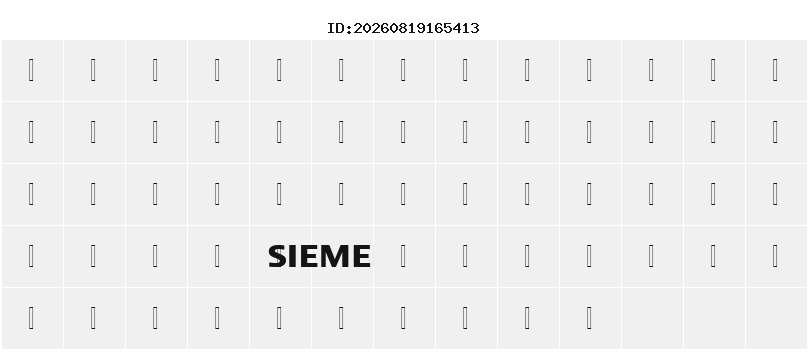
Siemens Logo Preview
• Font Name: Siemens Logo
• Full Font Name: Siemens Logo
• Character Count: 4
About Siemens Logo.ttf
Siemens Logo.ttf is a modern, elegant sans-serif font designed for ultimate readability and visual harmony. Perfect for branding, headlines, web design, and print materials.